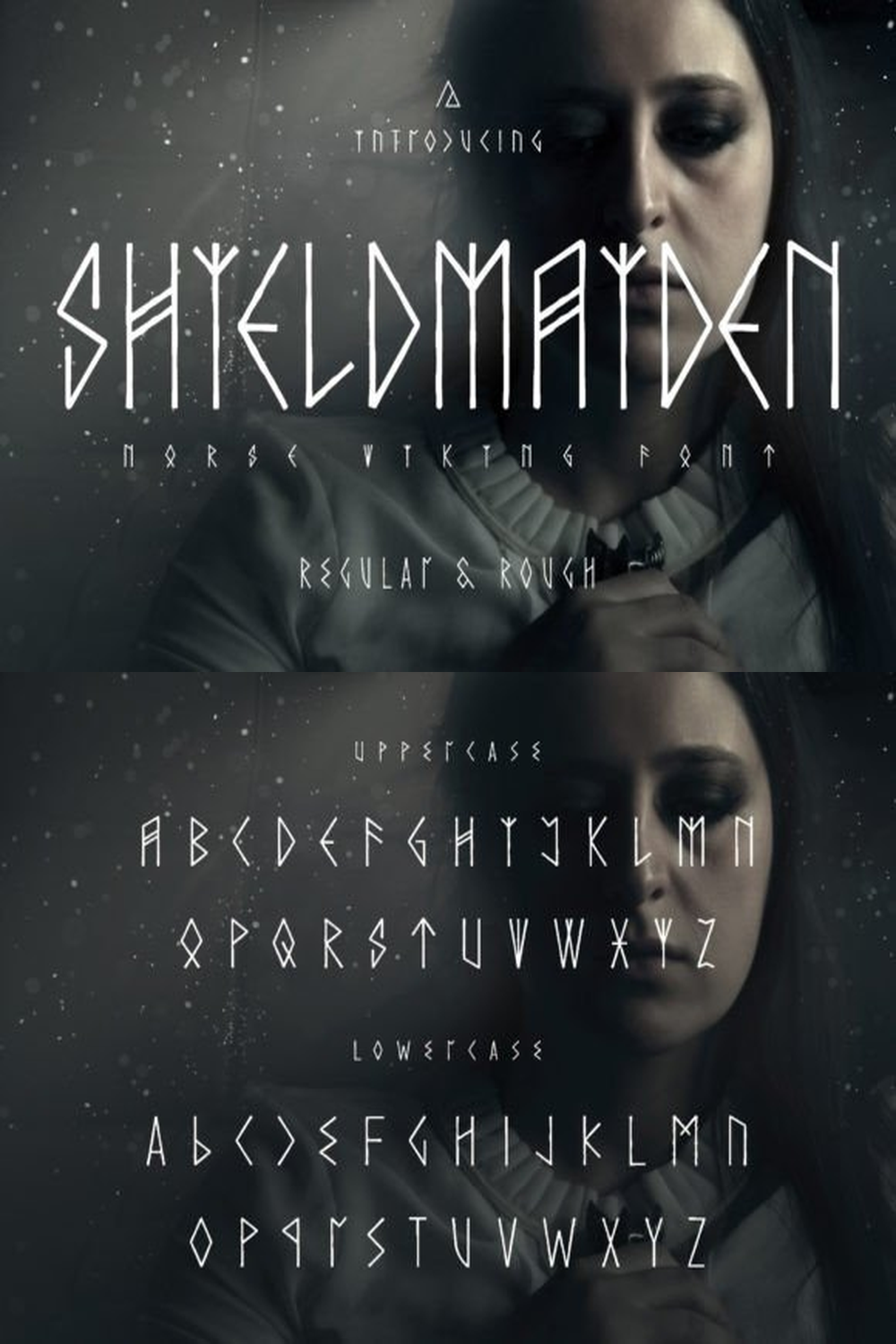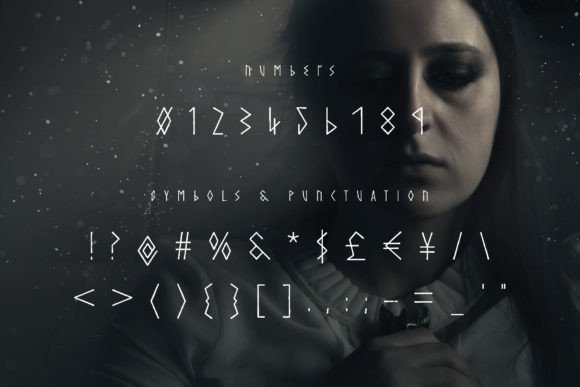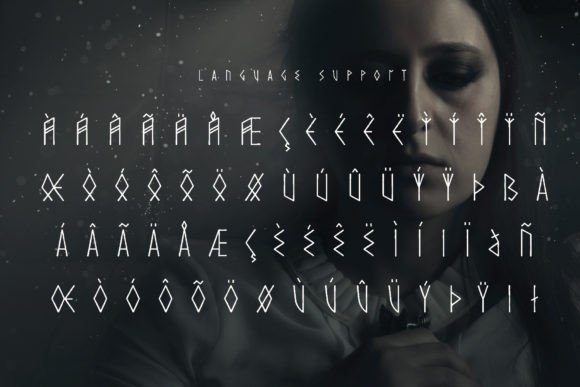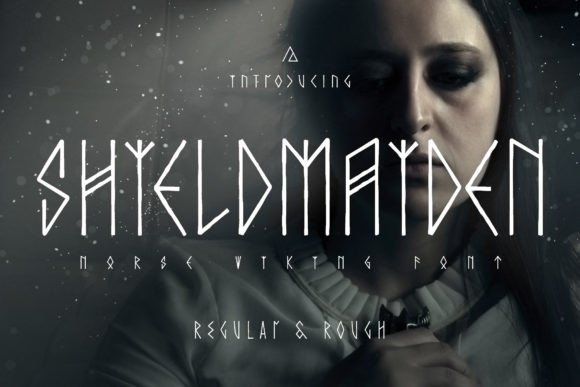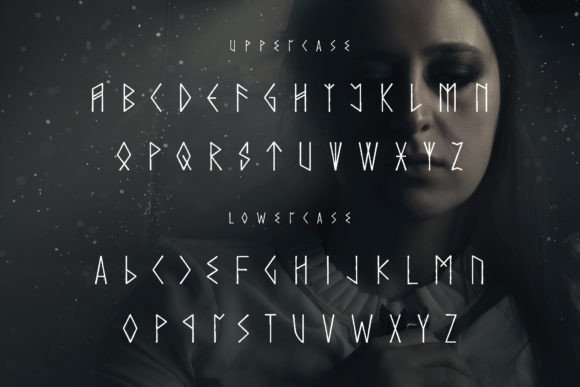
Shieldmaiden Font: A Nordic-Inspired Display Font for Unique Typography
About the Shieldmaiden Font
Elevate your designs with Shieldmaiden Font, a font that combines sophistication with readability. Shieldmaiden is a display font, inspired by ancient Nordic runes, and combines traditional Latin glyphs with elder futhark styling. It is perfect for display purposes, in particular headlines and perfectly suited related to nordic mythology!